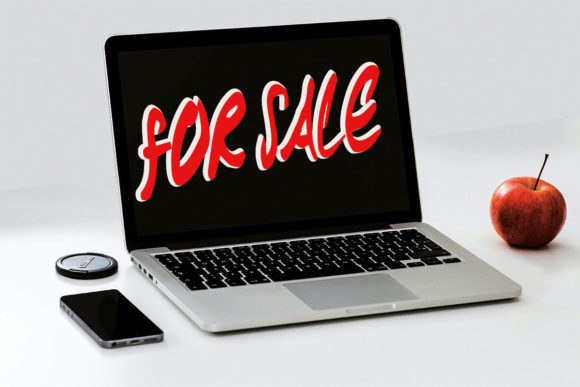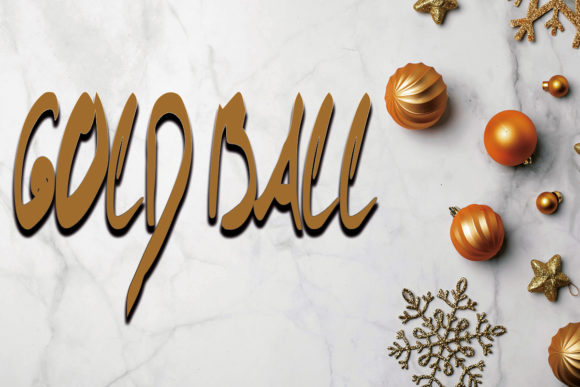
Discover the Charm of Gold Pen Font
Have you ever sat down with a blank page and a pen, waiting for inspiration to strike? That’s exactly what happened to me the other day. As I began to scribble down ideas, I stumbled upon a handwritten font that instantly captured my attention. Its whimsical strokes and elegant flair reminded me of a trusty pen that never fails to bring my creative projects to life. That’s when I knew I had to share this hidden gem with fellow designers – the Gold Pen Font.
As a valuable design resource, the Gold Pen Font is perfect for adding a personal touch to your next creative project. Its high-quality, handwritten style is versatile enough to be used in a variety of contexts, from blog posts to social media graphics. Whether you’re looking for a unique font to add some texture or simply want to give your designs a more human feel, the Gold Pen Font is sure to impress.
Key Features of Gold Pen Font
- High-quality design resource for creative projects, ideal for digital artwork, and print materials.
- Comes with a transparent background, making it easy to place over any image or design.
- Features a unique, hand-drawn style that mimics the look of a gold pen, perfect for adding a touch of elegance to any design.
- Includes 500+ glyphs, making it a versatile font for a wide range of creative projects.
Honest Review: Gold Pen Font
I recently came across the Gold Pen Font, a free design resource that caught my attention. As a designer, I’m always on the lookout for high-quality fonts to elevate my creative projects. The Gold Pen Font did not disappoint.
Here are some aspects that work well: ✨
- Smooth and elegant script style
- Perfect for adding a touch of sophistication to any design
- Transparent background makes it easy to combine with other elements
However, there are some limitations to consider: ⚠️
- Limited character set, may not be suitable for longer texts
- No bold or italic variations available
- May not be compatible with all font sizes or resolutions
Overall, the Gold Pen Font is a solid addition to any designer’s toolkit. While it may have some limitations, its elegant style and free availability make it a valuable resource for creative projects. I’d definitely recommend it for designers looking to add a touch of sophistication to their work.
How to Use Gold Pen Font
Introduction to Gold Pen Font
Gold Pen Font is a high-quality design resource ideal for creative projects that require a touch of elegance and sophistication. With its unique, handwritten style, this font is perfect for adding a personal touch to your designs.
Getting the Most Out of Gold Pen Font
To get the most out of Gold Pen Font, use it in conjunction with a transparent background to create a beautiful, high-quality design. Experiment with different font sizes, colors, and arrangements to add depth and interest to your creative project.
Gold Pen Font is perfect for a variety of creative projects, including:
- Personalized gifts and cards
- Branding and marketing materials
Alternatives to Gold Pen Font
1. Brush Script MT
Brush Script MT is a high-quality font that mimics the look of handwritten text. It’s ideal for creative projects that require a personal touch, such as invitations, greeting cards, or signage. This font is a great alternative to Gold Pen Font for designers who want a more subtle, elegant look.
When to use: Invitation design, greeting card design, signage, and other creative projects that require a personal touch.
Comparison to Gold Pen Font: Brush Script MT is more refined and elegant than Gold Pen Font, making it a great choice for projects where a high-end look is desired.
2. Pacifico
Pacifico is a modern, elegant font that features a clean and minimalist design. It’s perfect for designers who want a high-quality font that’s easy to read, even on a transparent background. This font is a great alternative to Gold Pen Font for designers who want a more contemporary look.
Can I use the Gold Pen Font with a transparent background?
Yes, the Gold Pen Font supports transparent backgrounds, making it ideal for designs that require a subtle or see-through effect. When using the font with a transparent background, ensure that your design software supports this feature, and you’re good to go.